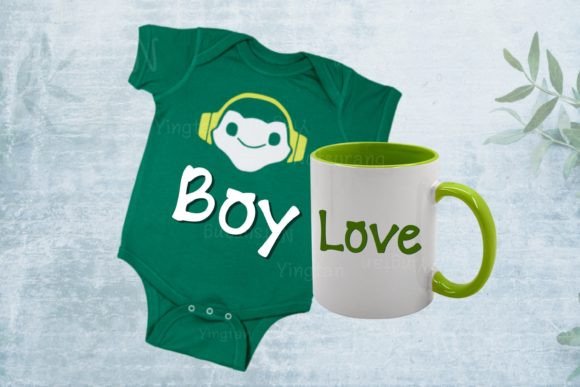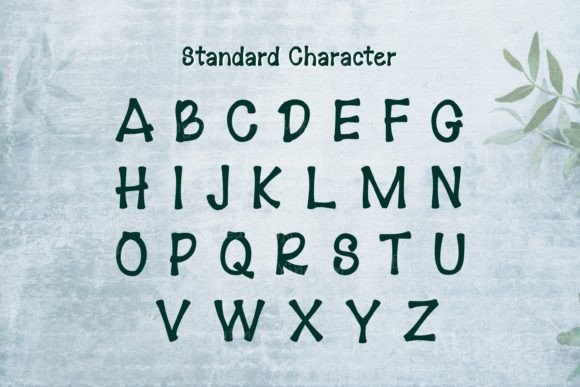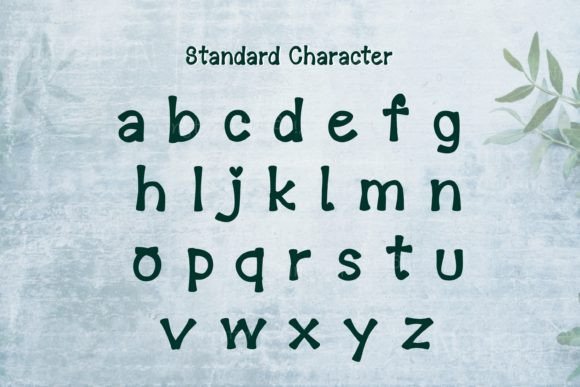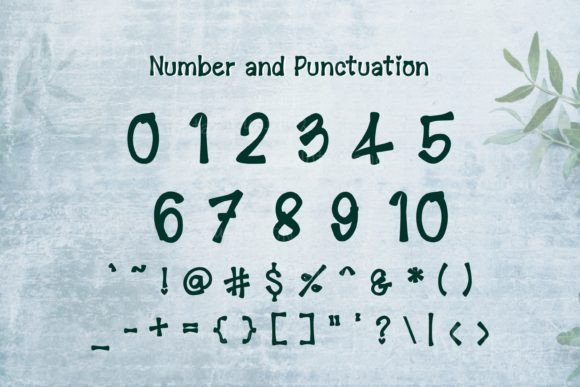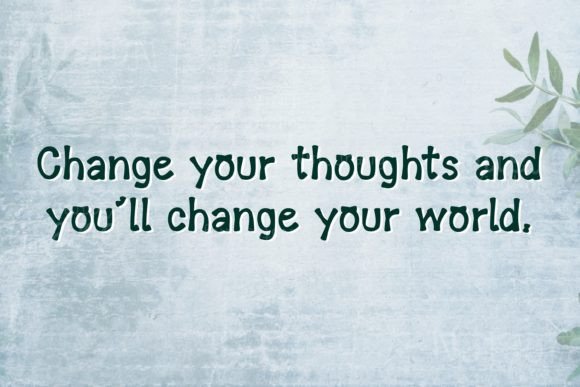
About Halfway Font
**Halfway** is a cute and adorable handwritten font that brings a joyful and playful touch to your designs. Its charming and lovable style makes it a perfect choice for a variety of creative projects. Whether you’re working on invitations, greeting cards, posters, social media graphics, or any other design, adding Halfway to your creations instantly makes them stand out with a delightful and joyful vibe.
One of the key features of Halfway is its cuteness. The font’s whimsical and friendly letterforms create a sense of innocence and happiness, making it particularly appealing for projects aimed at children, families, or anyone seeking a cheerful and lighthearted atmosphere. Its handwritten charm adds authenticity, giving your designs a warm and approachable feel.
Halfway’s adorable nature makes it versatile and suitable for various design contexts. It can enhance the visual appeal of birthday cards, party invitations, children’s books, playful branding, product packaging, and more. The font’s joyful touch adds a sense of fun and creativity to your projects, making them more engaging and memorable to your audience.
Incorporating Halfway into your creative ideas brings an element of delight and innocence, making your designs visually appealing and captivating. Its adorable handwritten style adds character and personality, transforming ordinary text into something extraordinary. Whether you’re designing for print or digital media, Halfway adds a touch of charm and playfulness, making your creations truly stand out.
In summary, Halfway is more than just a font; it’s a design tool that brings a joyful and adorable touch to your projects. Embrace its cuteness and let it infuse your creative ideas with happiness and creativity, making them shine with a unique and lovable charm.